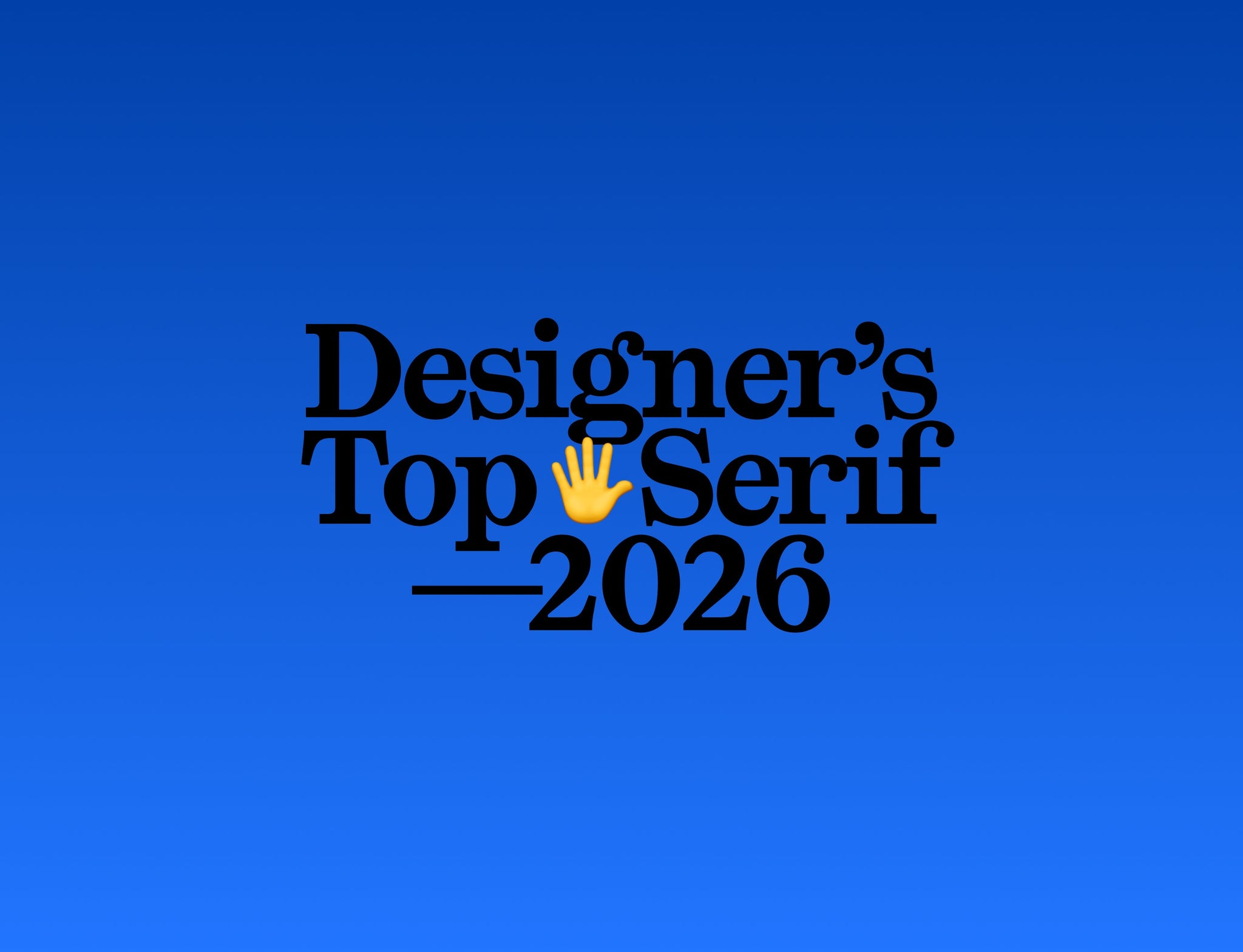
At Pangram Foundry, several serif typefaces have become go-to choices for designers seeking character, versatility, and timeless appeal.
As with every year, we see which fonts are trendy and tickle your creative brains. Here are five of the most popular serif fonts from the foundry and what makes them stand out in the hopes to inspire your next design.
Kyoto
Kyoto combines classical elegance with contemporary refinement. Its carefully crafted details and balanced proportions make it a favorite for luxury branding, packaging, and editorial work. Designers appreciate Kyoto's ability to feel sophisticated and distinctive without becoming overly decorative, allowing it to elevate projects while remaining highly versatile.
Lettra Mono
Lettra Mono offers a unique blend of monospaced structure and serif personality. This unusual combination gives layouts a technical yet literary feel that stands apart from conventional typography choices. It has become especially popular in publishing, cultural projects, and identity systems that aim to communicate intelligence, creativity, and originality.
Fragment Serif
As the serif counterpart to the Fragment family, Fragment Serif balances clarity and elegance with remarkable flexibility. Its contemporary proportions and refined details allow it to perform beautifully across both print and digital environments. Designers often choose Fragment Serif when they need a dependable typeface that can handle everything from editorial layouts to complete branding systems.
Editorial Old
Editorial Olddraws inspiration from historical publishing and classic type specimens. Its rich character and traditional forms give projects a sense of heritage and authenticity, making it particularly appealing for luxury brands, hospitality projects, and editorial design. For designers seeking a serif with timeless charm, Editorial Old remains a standout choice.
Editorial New
Few contemporary serif fonts have had as much influence as Editorial New. Inspired by traditional newspaper typography, it combines sharp contrast, elegant proportions, and expressive italics to create a typeface that feels both classic and modern. Its versatility and unmistakable personality have made it a favorite among designers working in fashion, publishing, branding, and art direction.
Each font offers extensive language support, thoughtful engineering, and a distinctive voice that helps designers create memorable work. Whether you're building a luxury brand, designing a publication, or crafting a digital experience, Pangram Pangram's serif collection offers typefaces capable of bringing both character and sophistication to any project.